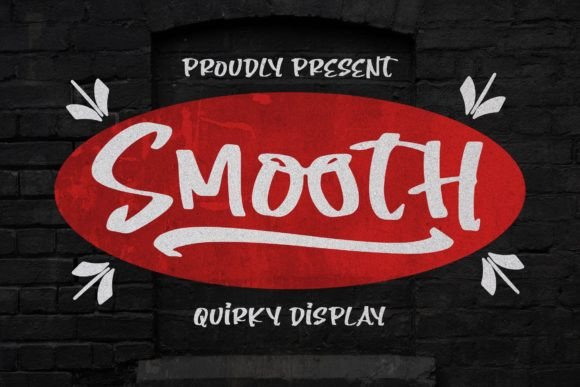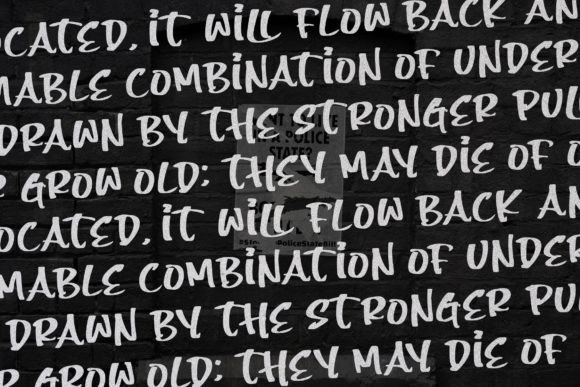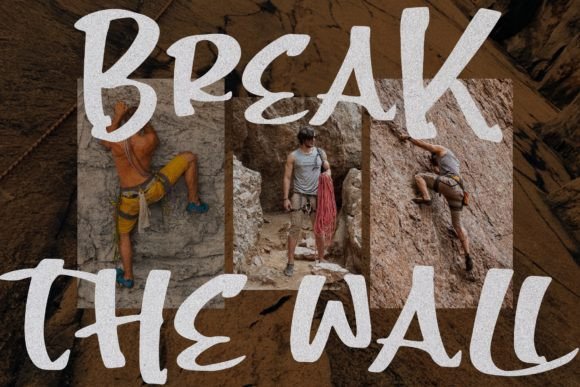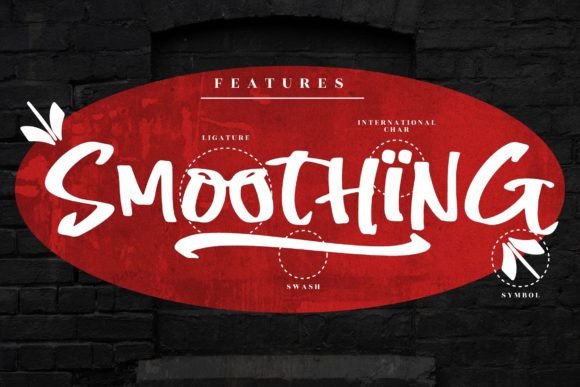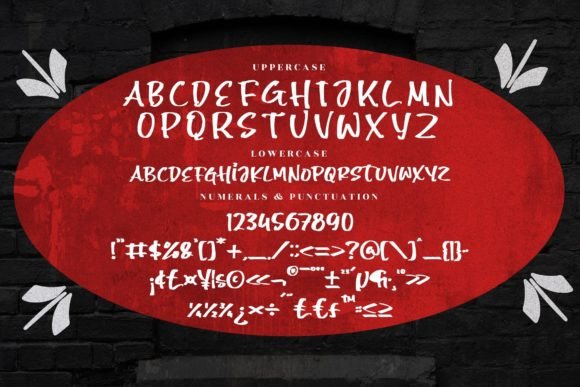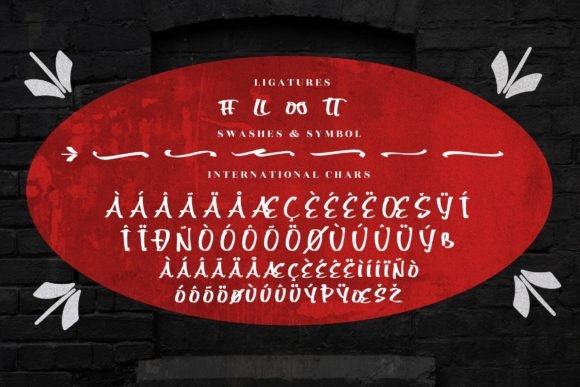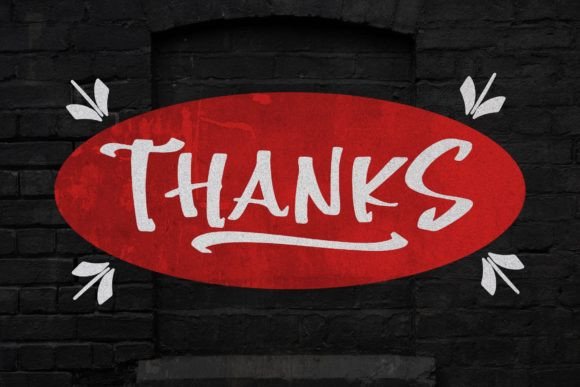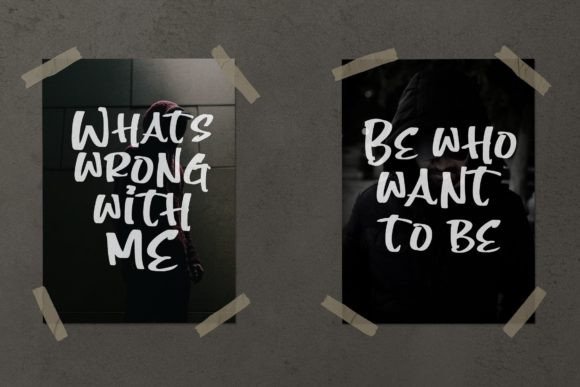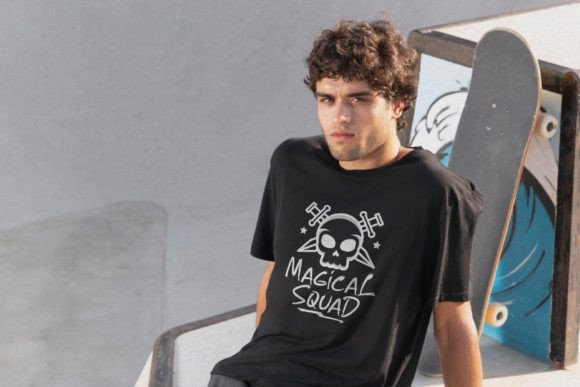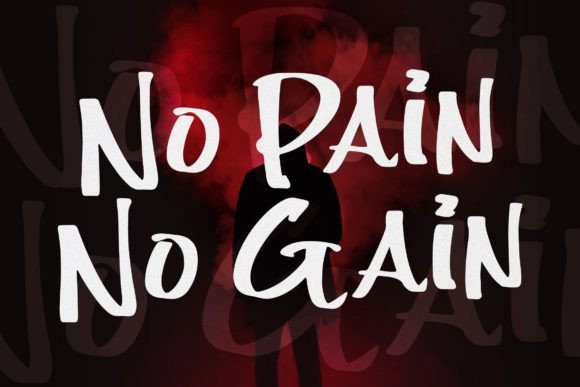
Smooth Font
About Smooth Font
**Smooth Font: Where Quirkiness Meets Handwritten Charm**
Introducing “Smooth,” a quirky handwritten font that adds a playful touch to a wide range of creative projects. Whether you’re working on logos, branding, homeware designs, or any other lovely project, Smooth brings a unique script taste that stands out with its charm.
At the heart of “Smooth” is its quirky charm that injects a sense of playfulness into your designs. The handwritten characters in this font carry a distinct and delightful touch, making it a perfect choice for projects that seek to break away from the ordinary. “Smooth” goes beyond being just a typeface; it transforms your text into a visually appealing element, bringing a touch of whimsy to your creative work.
The quirkiness of “Smooth” opens up exciting possibilities for creative expression. Picture it adding a playful twist to logos, infusing charm into branding, or becoming the go-to font for homeware designs that demand a delightful script. This font becomes a versatile companion, seamlessly adapting to the essence of your creative vision.
The adaptability of “Smooth” makes it suitable for various applications across different mediums. Whether you’re crafting product packaging, designing T-shirts, or creating special event materials, this font becomes the dynamic brushstroke that elevates your work with a beautiful script taste.
In conclusion, “Smooth” is more than just a font; it’s an invitation to embrace quirkiness and handwritten charm. Embrace it, and witness your designs come to life with a touch of delightful playfulness. With “Smooth,” every letter becomes a quirky brushstroke, leaving an indelible mark of charm on your design journey.